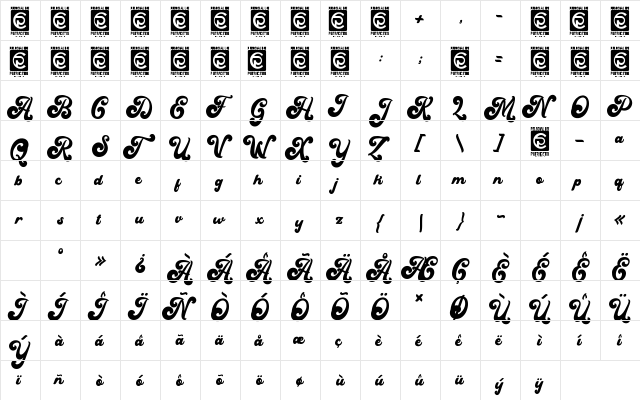
Vintage Queens Personal Use Regular
| Foundry | Putracetol Studio, Karanganyar. |
| Designer | Putra Novembria Candra Kusuma |
Design Context for Vintage Queens Personal Use Typeface
Vintage Queens Personal Use has the warm character of retro typography — evoking diners, record sleeves, and the golden age of print advertising.
Font Pairing: Combine Vintage Queens Personal Use with a simple slab or neutral sans — period-accurate companions reinforce the vintage feel without competing for attention.
Pro Tip: Use Vintage Queens Personal Use for headlines and pull quotes rather than body copy — its personality is best appreciated in short, focused bursts.